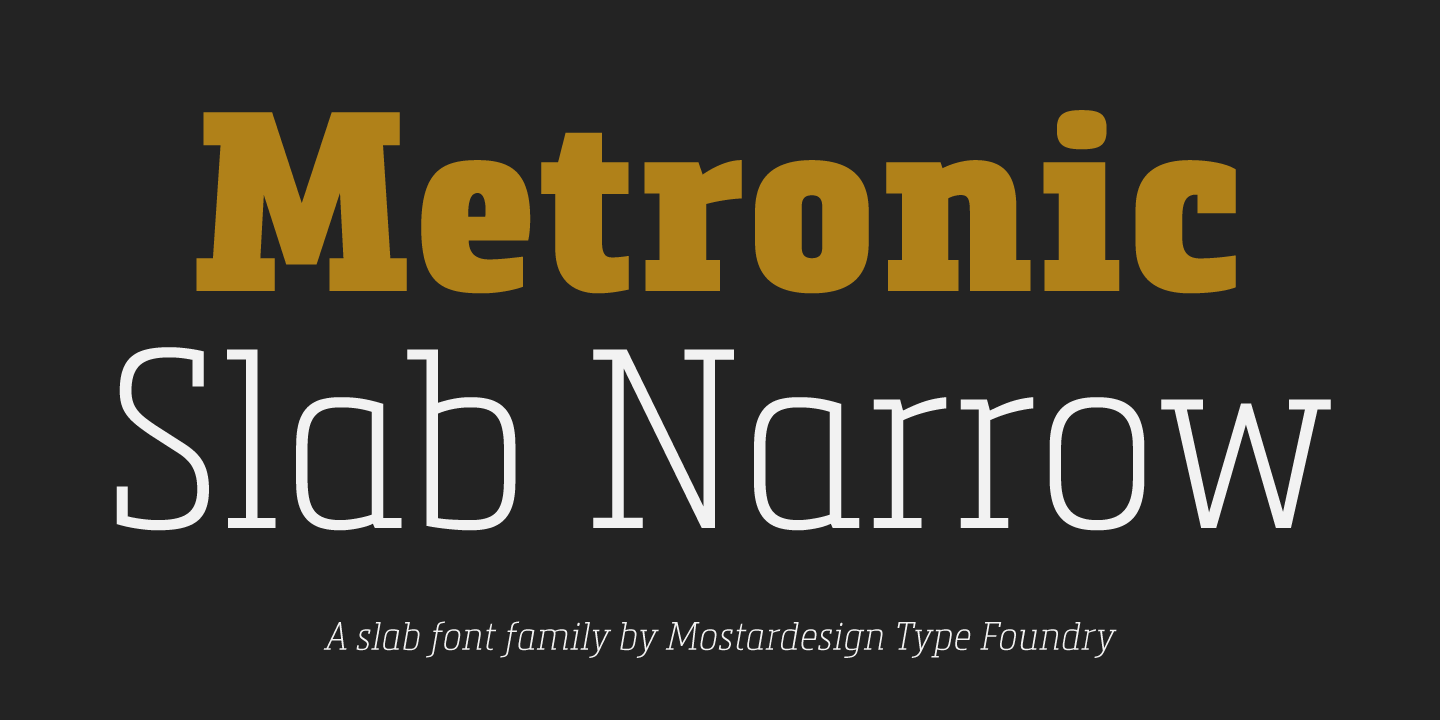
Metronic Slab Narrow Font is a powerful and exceptionally efficient typeface, perfectly suited for projects that demand a strong, contemporary statement within compact spaces. Imagine it dominating the headlines of a dynamic sports magazine, adding a robust and precise edge to technical reports, or making an unmissable declaration on modern industrial branding. Its narrow proportions make it an ideal choice for crafting impactful web banners, designing clear and concise user interfaces, or bringing a structured, high-impact presence to digital advertising and transportation signage where space optimization is crucial. If you're looking for a font that combines striking visual presence with remarkable space-saving capability and unwavering clarity, Metronic Slab Narrow Font is an outstanding selection.
What makes Metronic Slab Narrow Font so exciting? It’s its unique blend of a commanding slab serif presence with a condensed, streamlined design, creating an immediate sense of modern efficiency and powerful compactness. This font features strong, uniform serifs and meticulously crafted letterforms that ensure excellent readability even at smaller sizes or in dense blocks of text, despite its narrow build. Its clean lines and assertive appearance allow it to integrate seamlessly into diverse design ecosystems, supporting content without distraction while conveying a forward-thinking and professional sensibility. Designers will appreciate its versatility and its ability to lend an air of sophisticated strength and precision to any project, making it a highly dependable choice for achieving impactful and efficient typographic solutions.
The Metronic Slab Narrow Font family is typically designed with a comprehensive range of weights and styles to provide maximum flexibility for designers, despite its narrow form. You can generally expect to find numerous variations such as Light, Regular, Medium, SemiBold, Bold, and Black, accompanied by matching italic versions for each. This extensive family ensures that Metronic Slab Narrow Font can be used to create sophisticated typographic hierarchies, maintain consistent branding across diverse mediums, and offer flexible design solutions for both print and digital environments. Discover the unwavering clarity and contemporary strength of Metronic Slab Narrow Font Free Download for your next design endeavor.